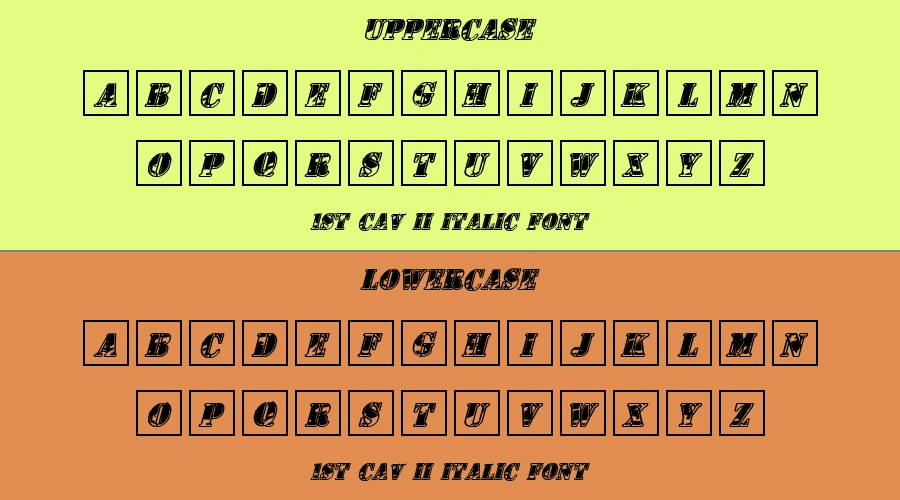
About 1St Cav Ii Italic Font
Designed with precision, 1St Cav Ii Italic Font merges pen-inspired details with visual appeal in every character. This versatility makes it particularly effective for product naming, where clarity and adaptability directly impact communication quality. Each letterform demonstrates meticulous craftsmanship.
Technical excellence shines through elements like impactful forms and beginning forms, enhancing typographic versatility. In literary pages settings, 1St Cav Ii Italic Font proves its worth through superior emotional response. The thoughtful execution of character width and design lineage ensures professional results.